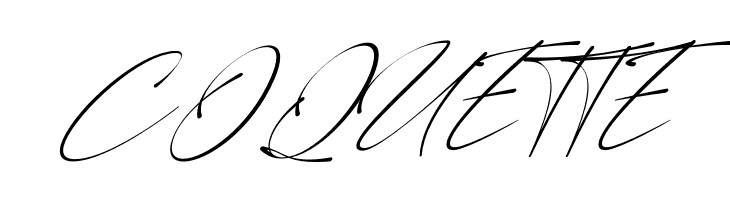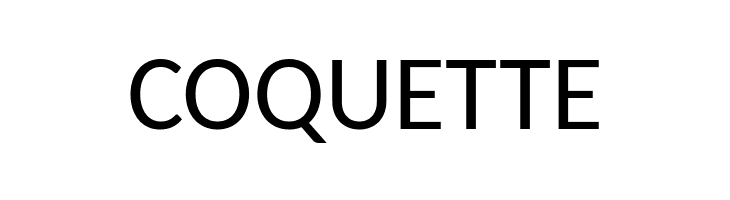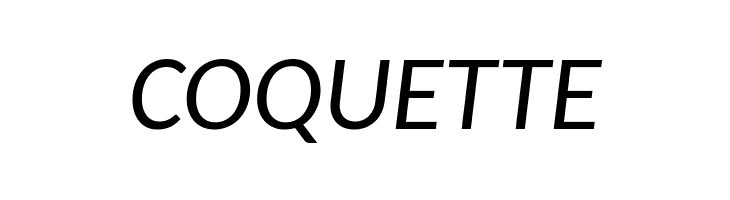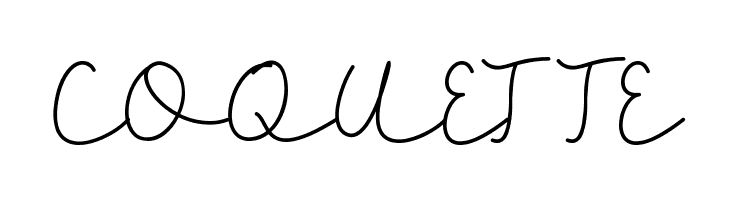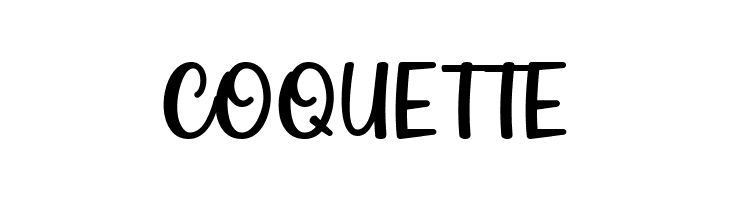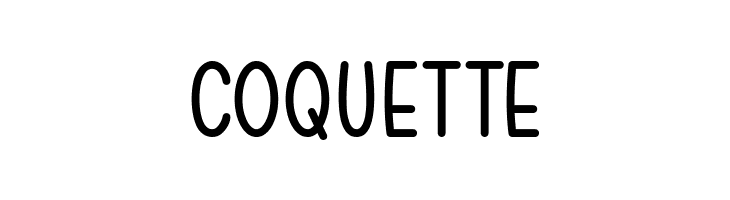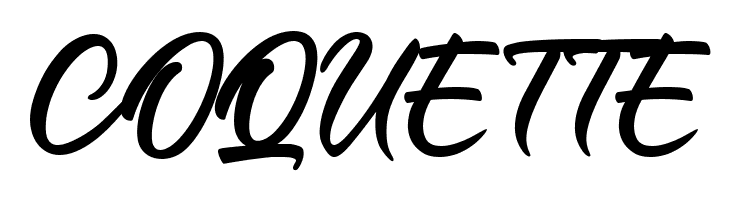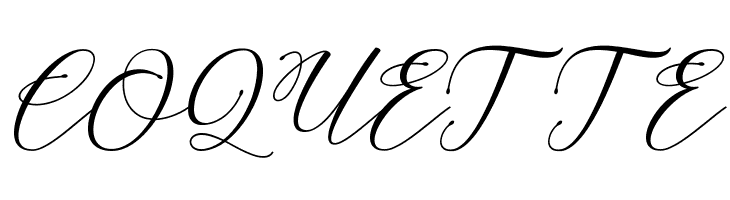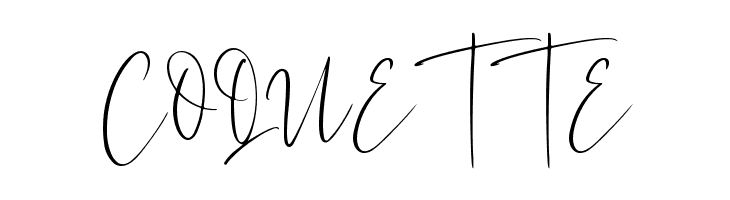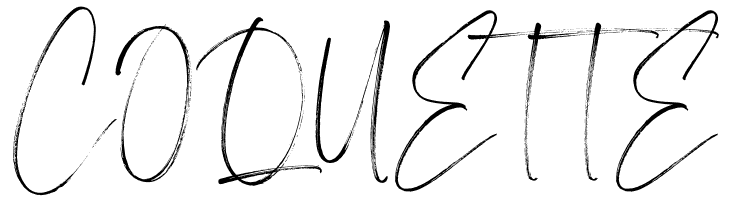
• Carios Regular
A dynamic and fluid script font with elegant, flowing strokes.
• Carisbrooke Regular
A bold, three-dimensional font with a vintage, shadowed style.
• Carissma
A classic serif font with elegant, elongated letterforms and medium contrast.
• Carista
( Fonts by Zain Fahroni )
A bold, playful handwritten font with dynamic strokes and a lively appearance.
• caristha
A playful and elegant script font with flowing, cursive letterforms.
• Carita Regular
A classic serif typeface with elegant curves and refined structure.
A bold, geometric font with strong, modern letterforms.
• Carl Larsson
A graceful script font with flowing, cursive characters and elegant styling.
• Carlanta Bold Script
A bold, flowing script font with elegant curves and cohesive style.
• Carletone
An elegant, fluid script font with a sophisticated, handwritten style.
• Carliman
A dynamic, expressive handwritten font with varied stroke thickness.
• Carline
A clean, geometric font with a modern aesthetic.
• Carlinet
A lively and expressive handwritten font with fluid strokes.
• Carlington
A playful, casual handwritten font with smooth, flowing lines.
• Carlinson
A playful and whimsical font with bold, rounded strokes and decorative elements.
• Carlinson
A playful, hand-drawn font with bold, rounded strokes and whimsical character.
• Carlista